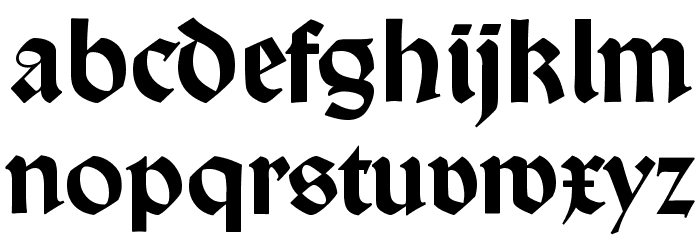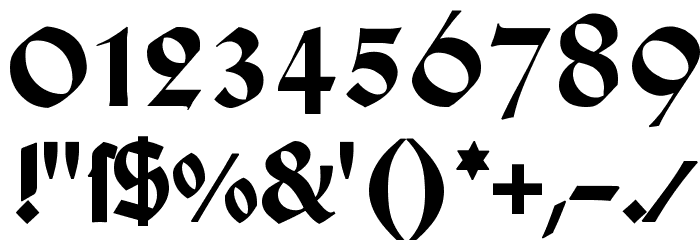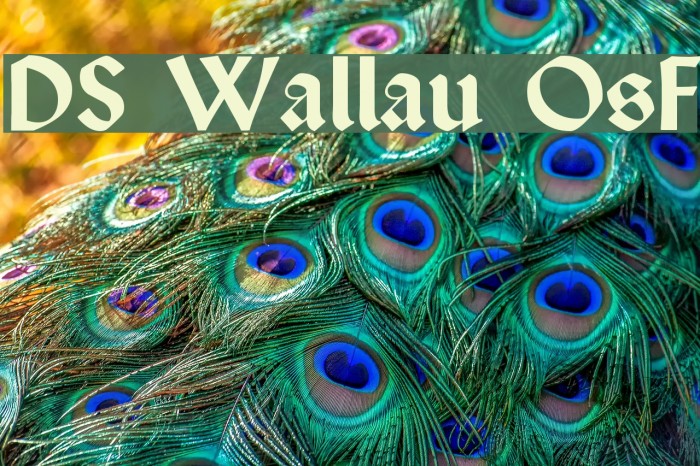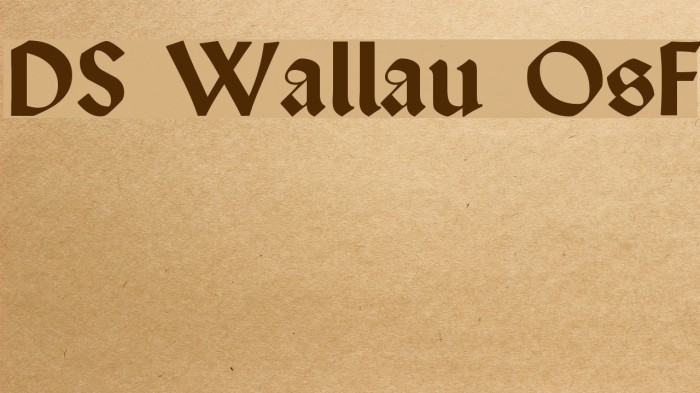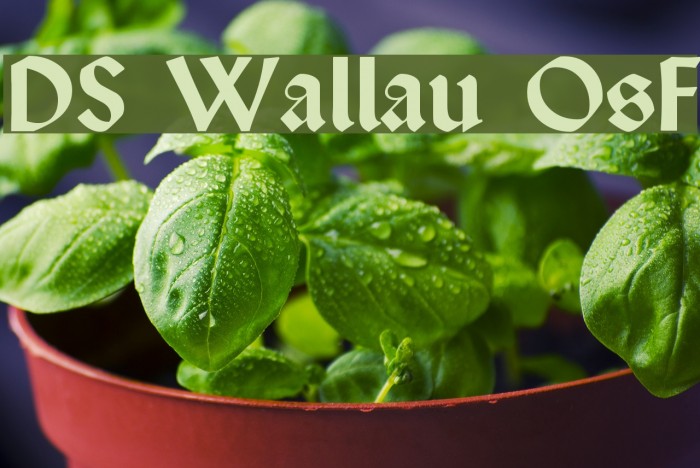
DS Wallau OsF Font
This font exhibits a bold and striking design, reminiscent of traditional blackletter styles. The uppercase letters feature sharp, angular lines with a strong vertical emphasis, while the lowercase letters maintain a consistent style with intricate curves and pointed edges. The numerals are equally bold, with a distinctive flair that complements the overall aesthetic. Special characters are designed with the same attention to detail, ensuring a cohesive look across all glyphs. This font's dramatic appearance makes it ideal for projects that require a historical or gothic touch.
A bold, blackletter-inspired font with sharp, angular lines and a gothic aesthetic.
- Proposed Projects: Suitable for historical documents, gothic-themed designs, book covers, and decorative signage.
- Category: Blackletter
- Overall Style: Gothic, Traditional
- Use Case: Headlines, Logos, Decorative text